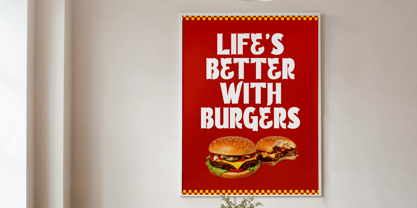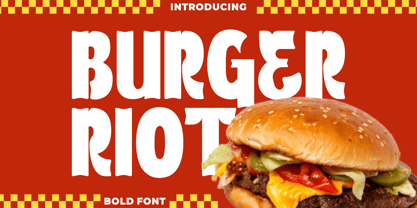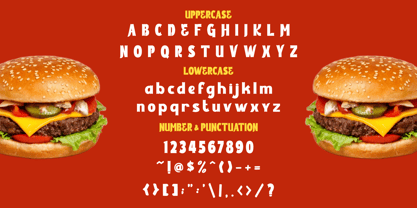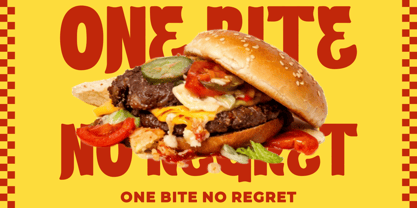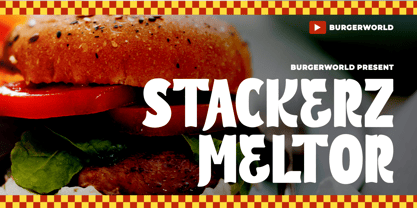
Burger Riot
by Shanaf
The Burger Riot Font Family was designed by Yesie Erma Yunita and published by Shanaf. Burger Riot contains 2 styles and family package options. More about this family
Burger Riot Bold Font brings heavy letterforms with tall structure and strong vertical rhythm. The strokes look thick and solid, giving each word strong impact. Characters feature condensed proportions that save space in bold layouts. Edges curve slightly with sharp inner cuts, adding attitude and movement. Contrast stays low, so the font feels stable and powerful. Uppercase letters dominate headlines with confident presence and easy recognition. Lowercase letters keep the same bold spirit for flexible branding systems. This style mixes retro diner energy with modern street branding appeal. It suits logos, menu titles, posters, ads, packaging, stickers, and promotional graphics. The overall voice feels loud, playful, confident, and attention driven. Use this font for burger shops, fast food brands, snack products, food trucks, and casual restaurants. It works well on storefront signs, menu boards, combo promos, and campaign headlines. The compact width helps fit long names into strong logo layouts. Thick shapes stay readable on packaging, labels, and delivery branding. It also fits book covers, magazine titles, event flyers, greeting cards, and crafting projects. Designers can pair it with script accents for contrast and personality. Burger Riot Bold Font helps brands look energetic, bold, and memorable. It is ideal for businesses that need instant impact and strong visual identity.